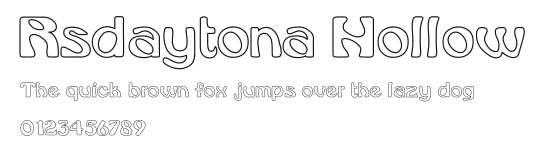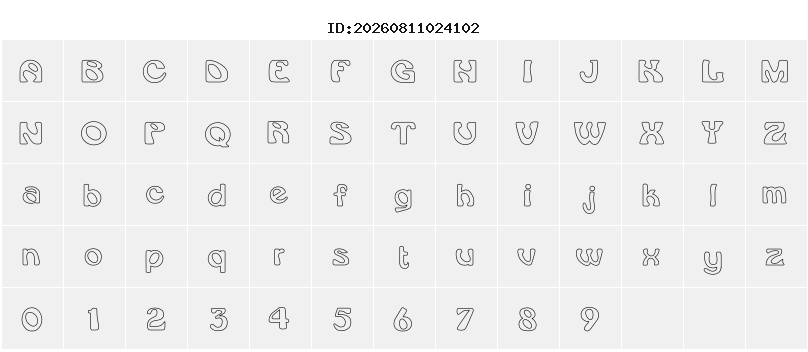
• Font Name: Rsdaytona Hollow
About Rsdaytona Hollow.ttf
Rsdaytona Hollow.ttf is a modern, elegant sans-serif font designed for ultimate readability and visual harmony. Perfect for branding, headlines, web design, and print materials.